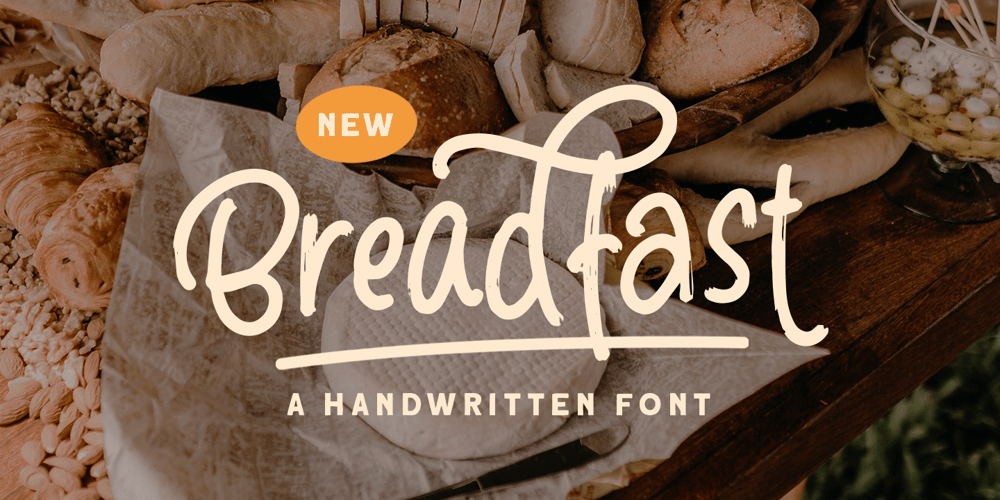
Breadfast Font Family was designed by Hendry Juanda and published by Letterhend. Breadfast contains 1 styles and family package options. Breadfast is a handwritten font that contain uppercase, lowercase, symbol, alternate, and also support multi language. you can use this font to make a logo for branding, quote, and playful design.Happy Creating!